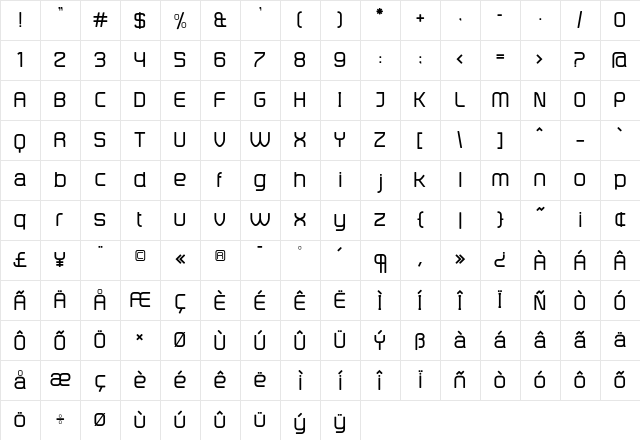
Formatt Regular Free Font
Formatt Regular
Foundry:  Identikal Foundry t of the Identikal Corporation
Formatt Family
Formatt Regular
Design Context for Formatt
Formatt is a composed and adaptable typeface that performs quietly and consistently across a wide range of design contexts.
Who designed the Formatt Regular font?
This font was published by  Identikal Foundry t of the Identikal Corporation. Check the technical specs section for copyright and designer details.